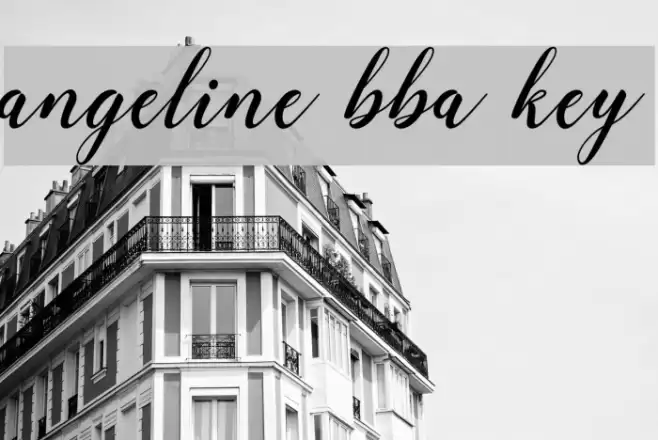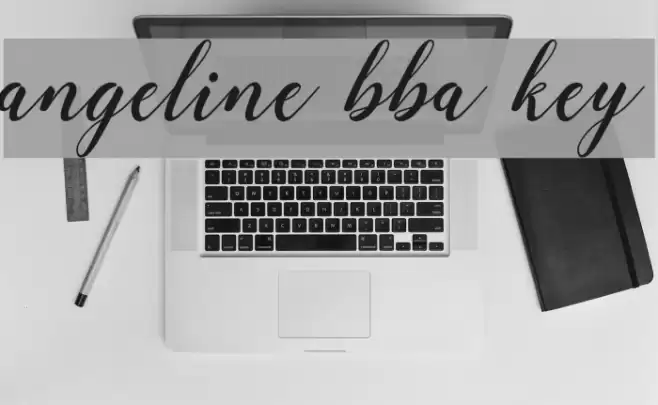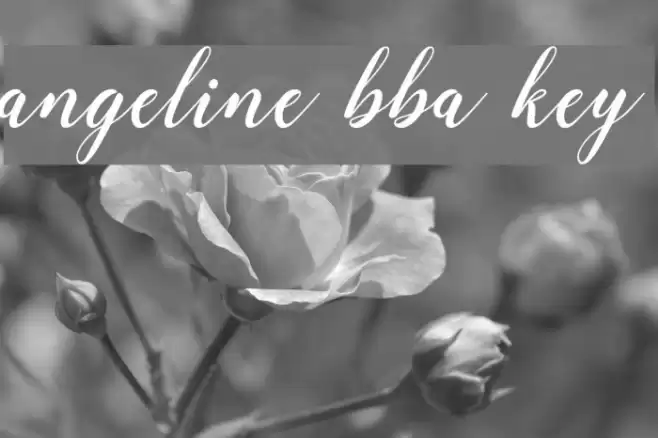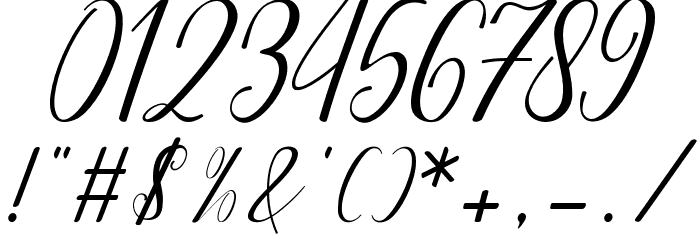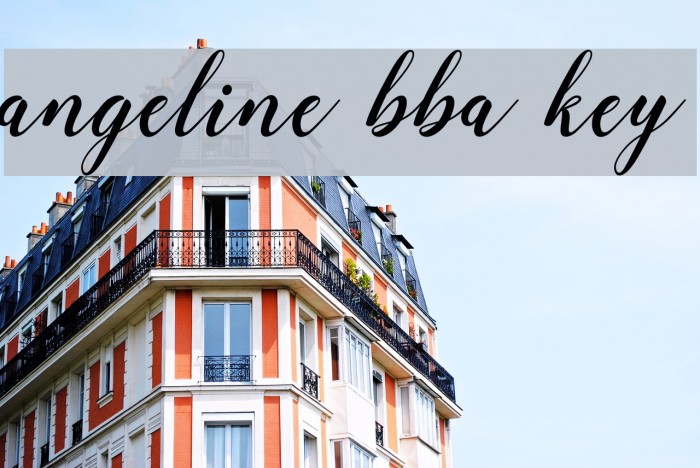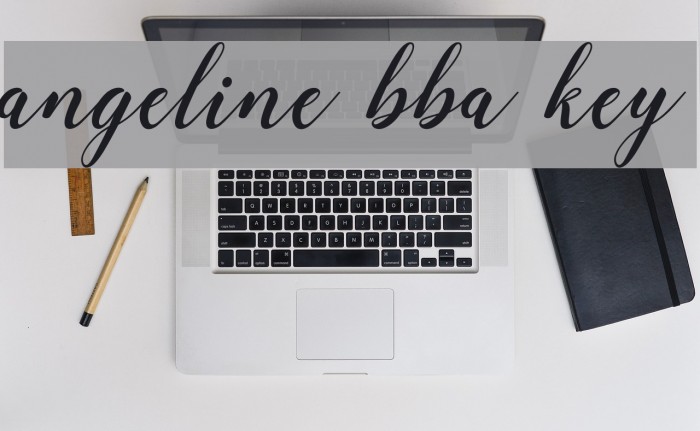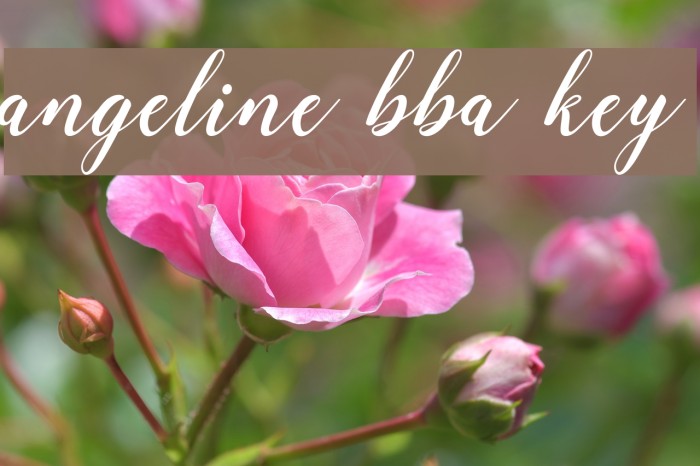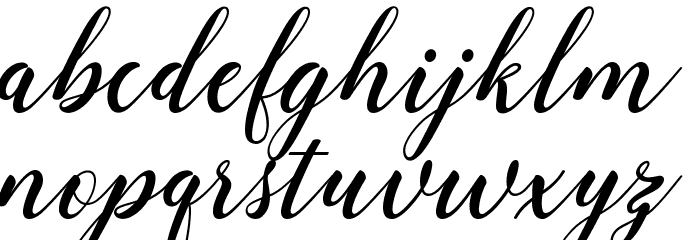
angeline bba key Font
angeline bba key Description
This elegant script font features flowing, cursive letterforms with a sophisticated and graceful appearance. The uppercase letters are tall and slender, with sweeping curves and delicate flourishes that add a touch of refinement. The lowercase letters maintain a consistent style, with smooth connections and a harmonious flow. The numerals are stylishly designed, complementing the overall aesthetic. Special characters are crafted with the same attention to detail, ensuring a cohesive look across all glyphs. This font exudes a sense of elegance and charm, making it suitable for a variety of formal and decorative applications.
An elegant script font with flowing, cursive letterforms and refined flourishes from Uncategorized fonts.
- Proposed Projects: Ideal for wedding invitations, elegant branding, greeting cards, and upscale packaging.
- Overall Style: Elegant, Decorative
- Use Case: Logos, Invitations, Decorative text